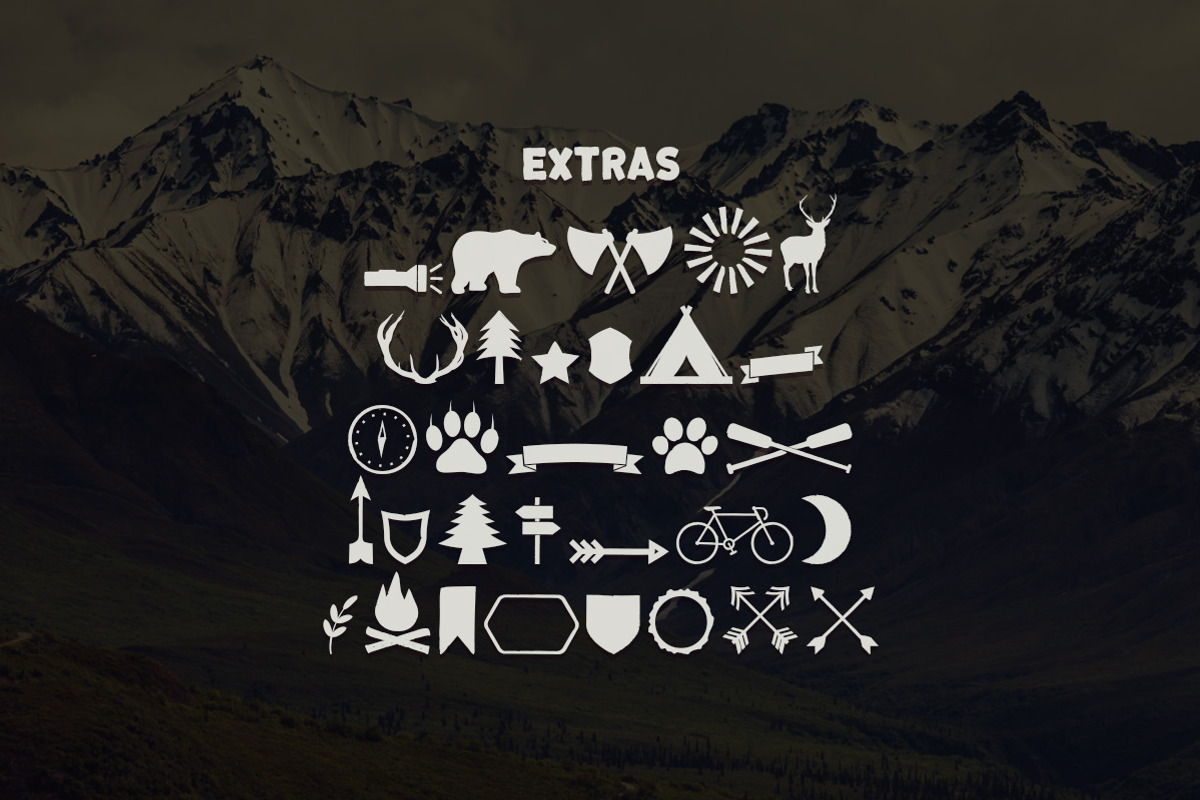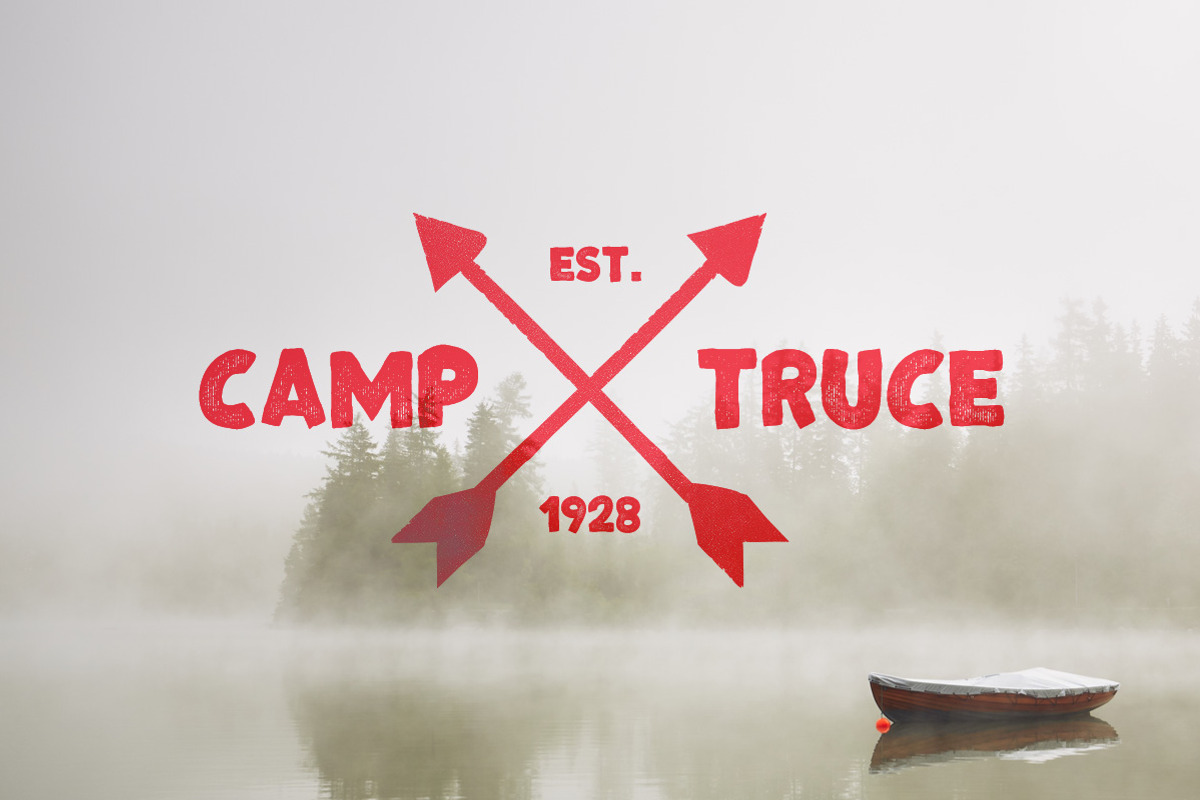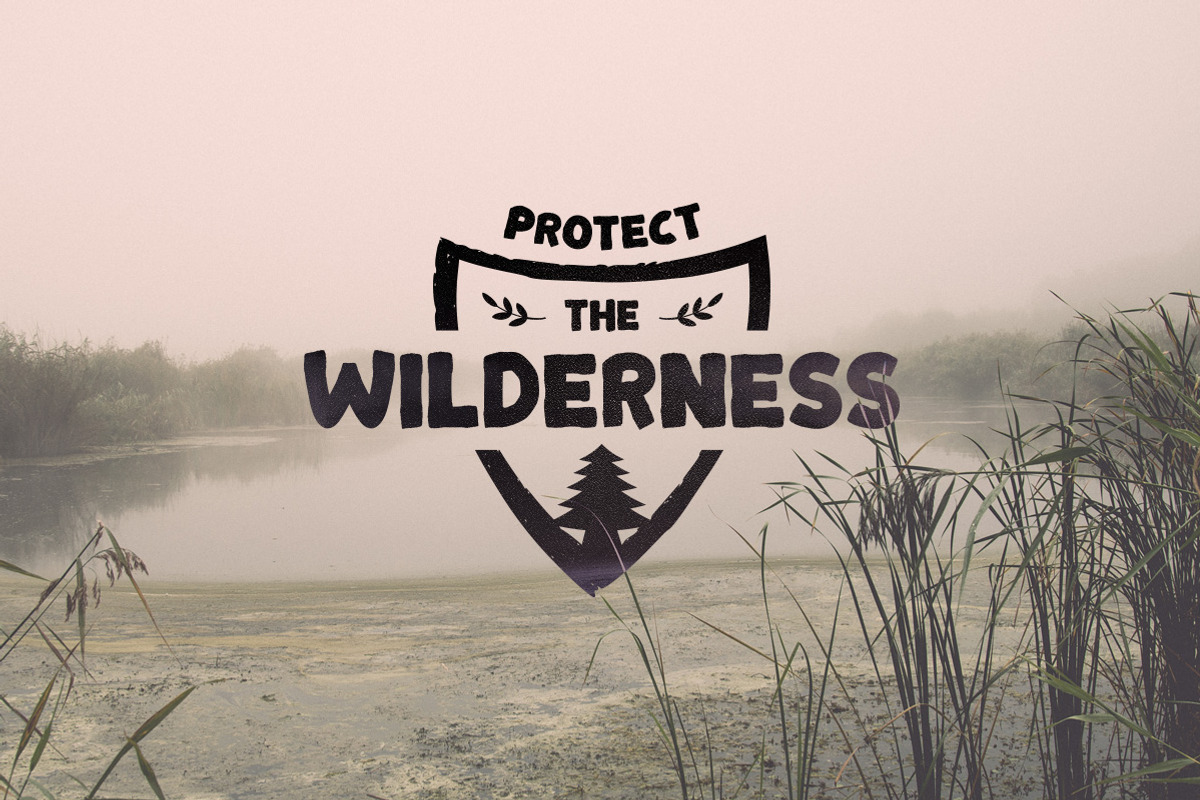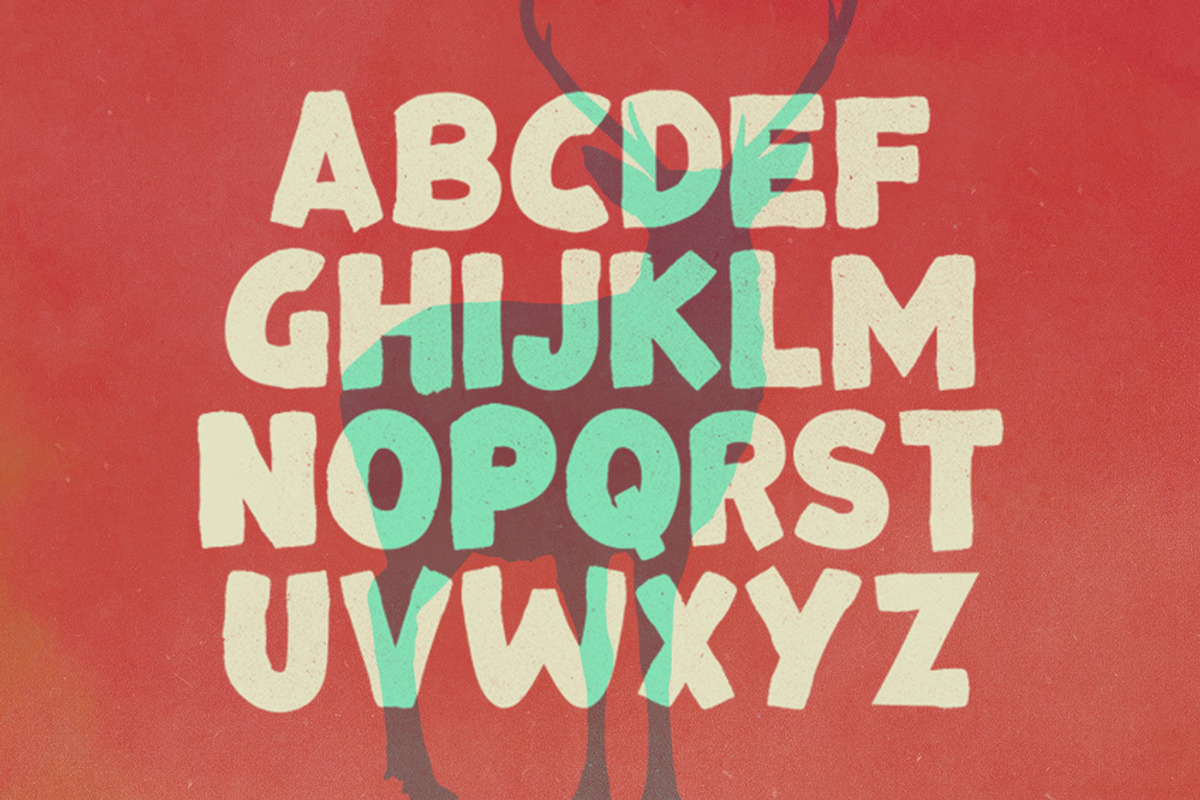
Bonfire Typeface
Bonfire Typeface by Tugcu Design Co. is a font selected for branding, posters, packaging, typography.
- It includes English uppercase letters, numbers and punctuation.
- Bonfire also includes camping and nature related vectors.
- Bonfire Regular
- Bonfire Extras
- Bonfire Rough
Why Bonfire Typeface is worth a look
Bonfire Typeface by Tugcu Design Co. fits naturally into Branding, posters, packaging, typography.